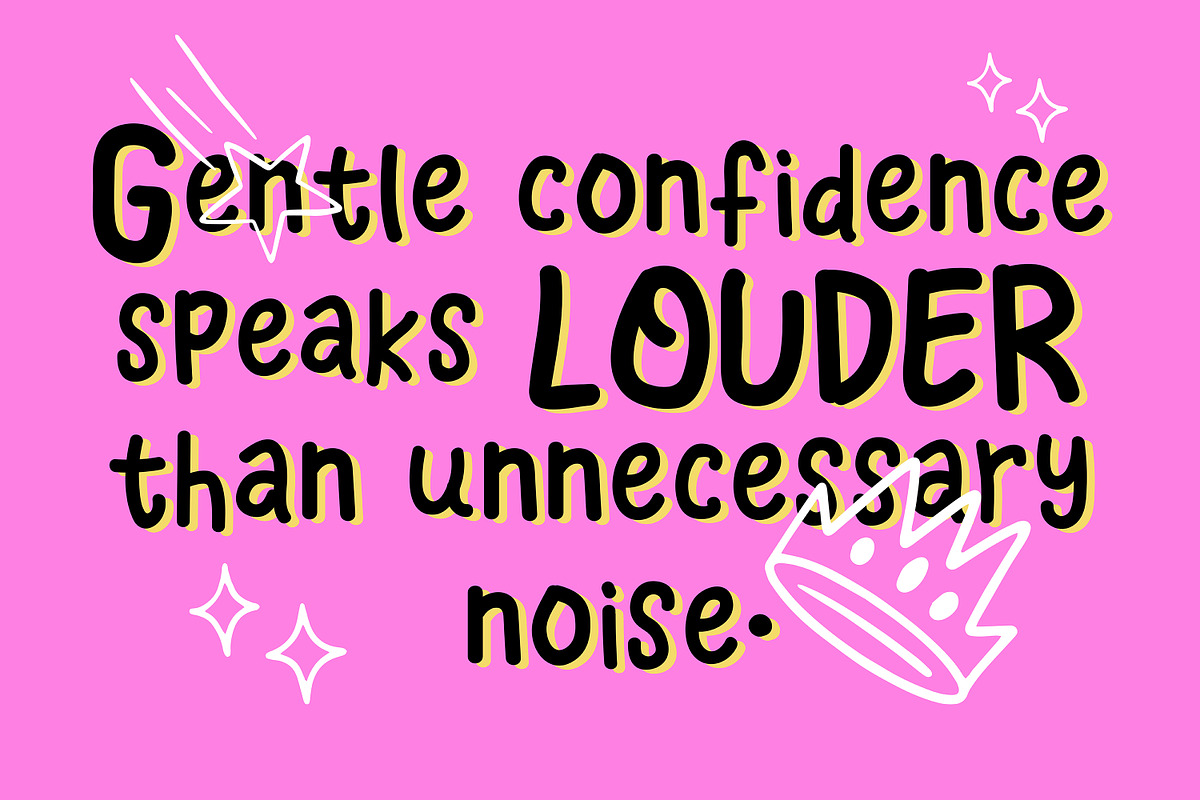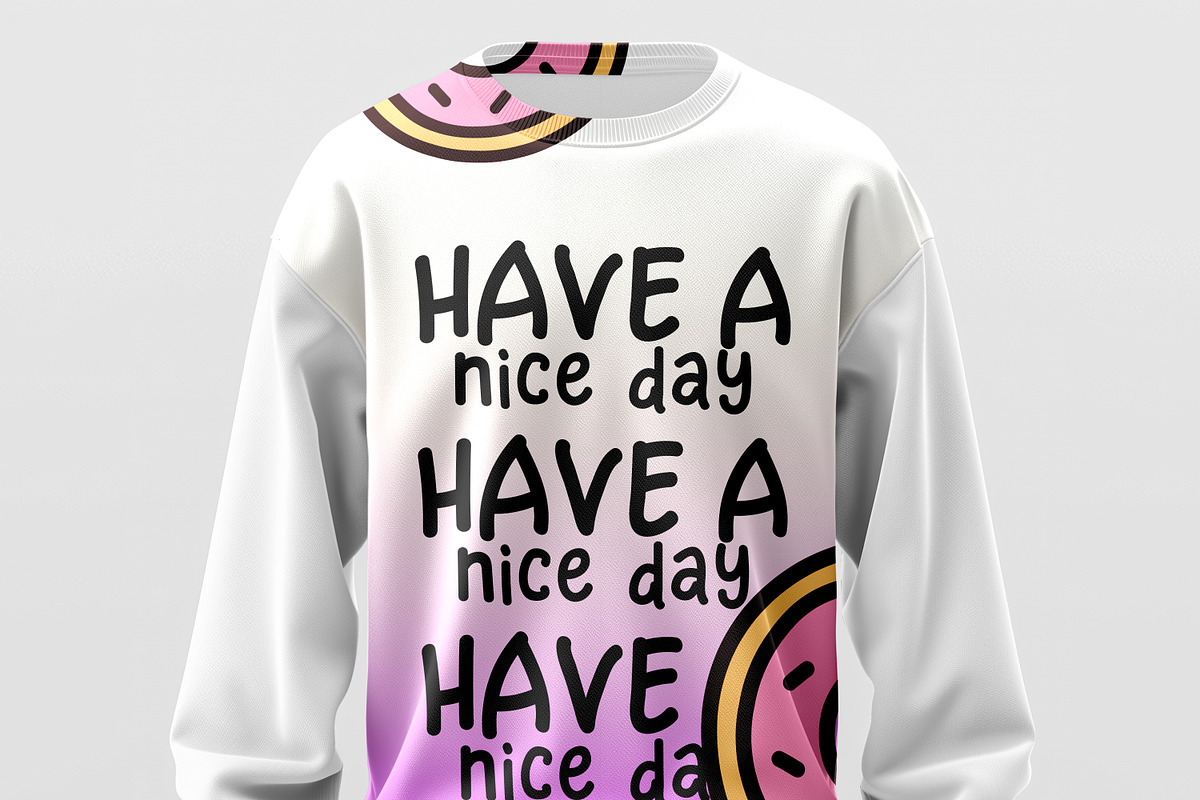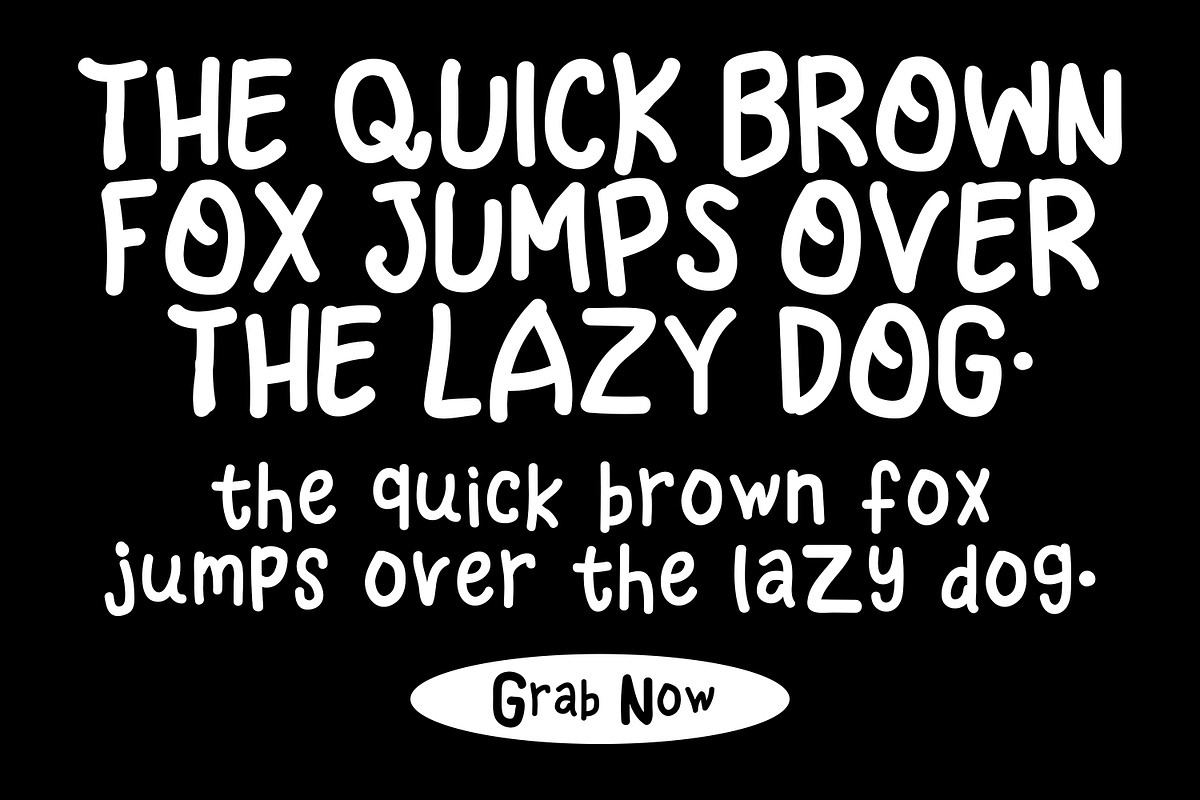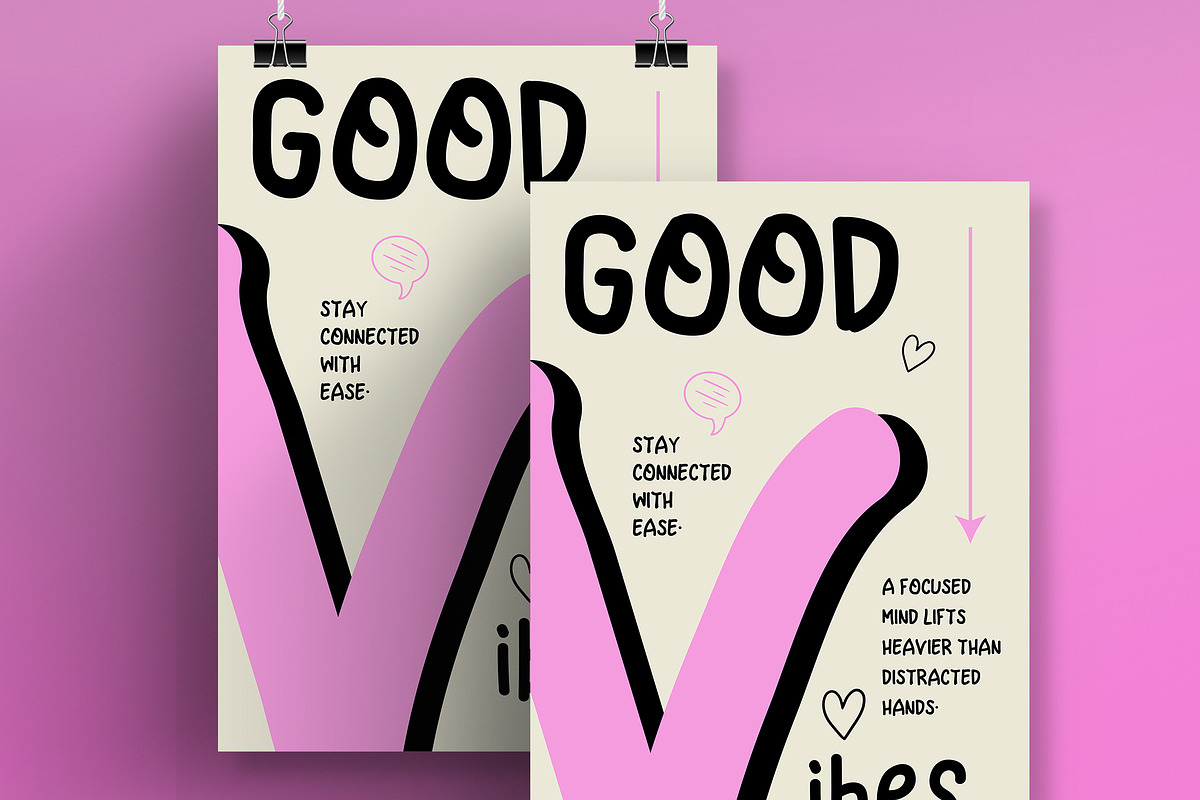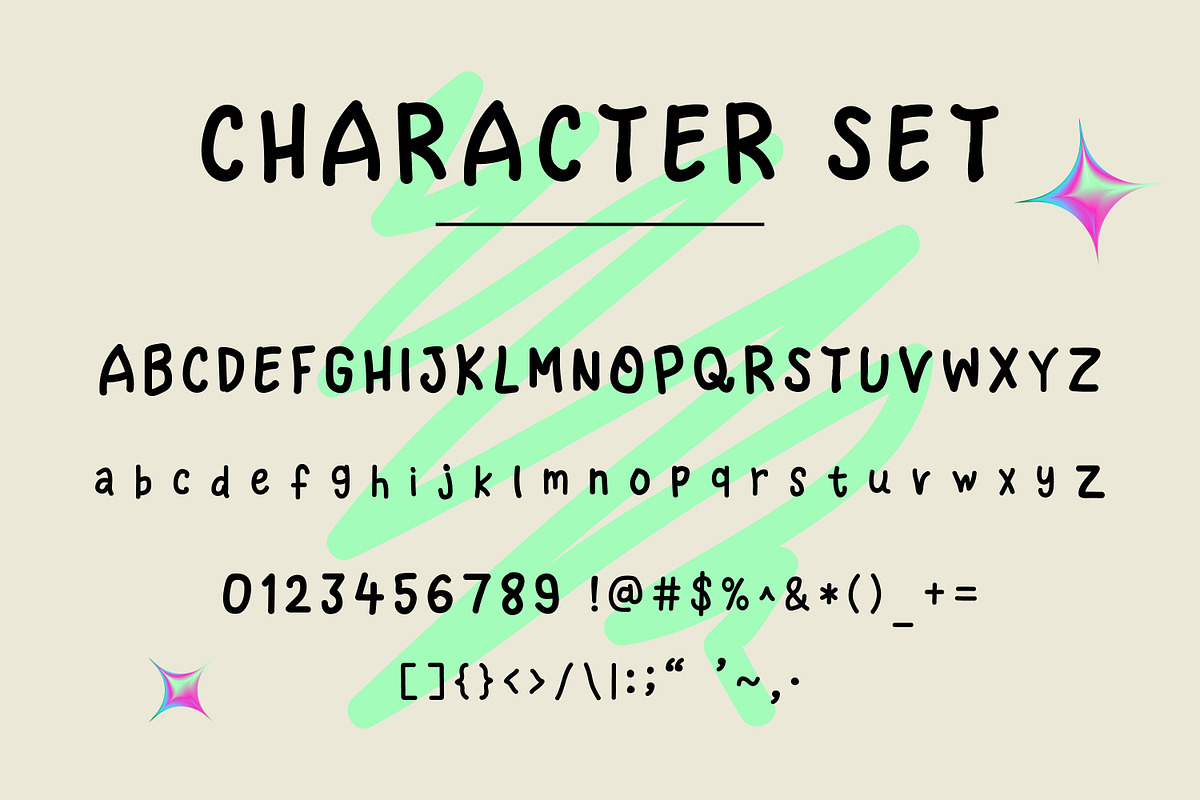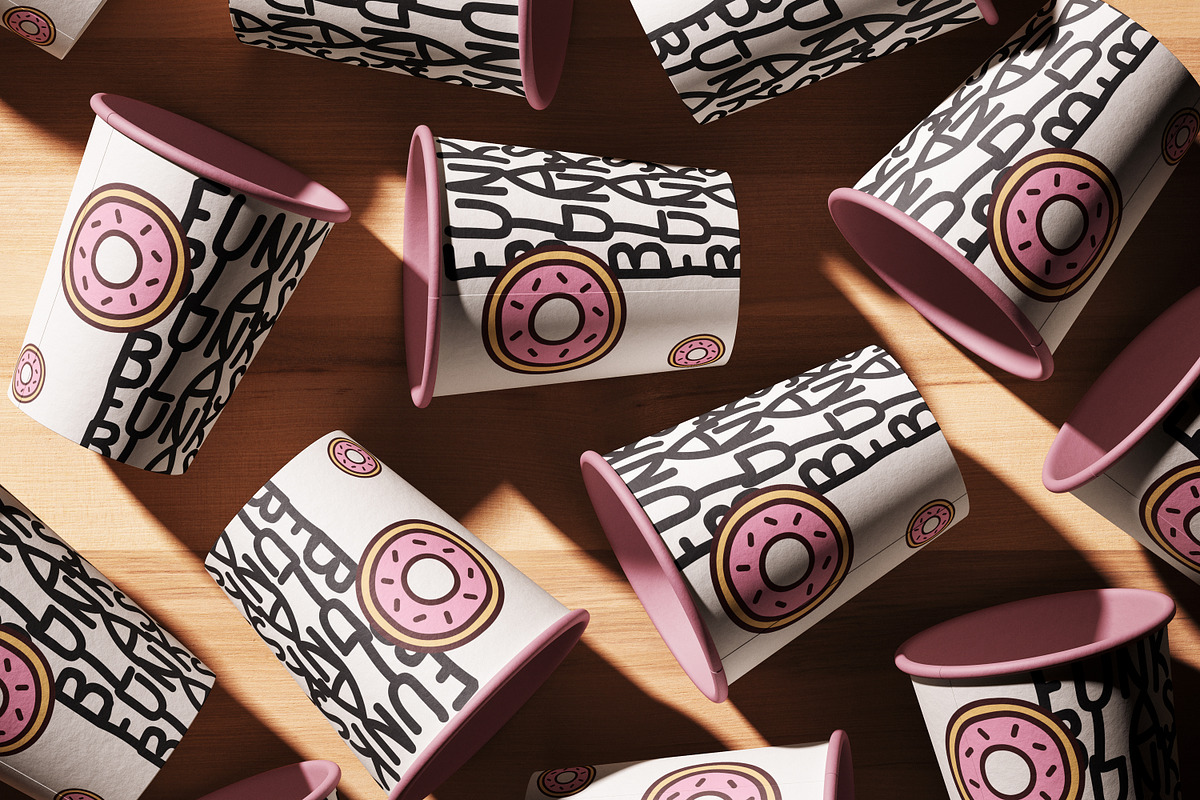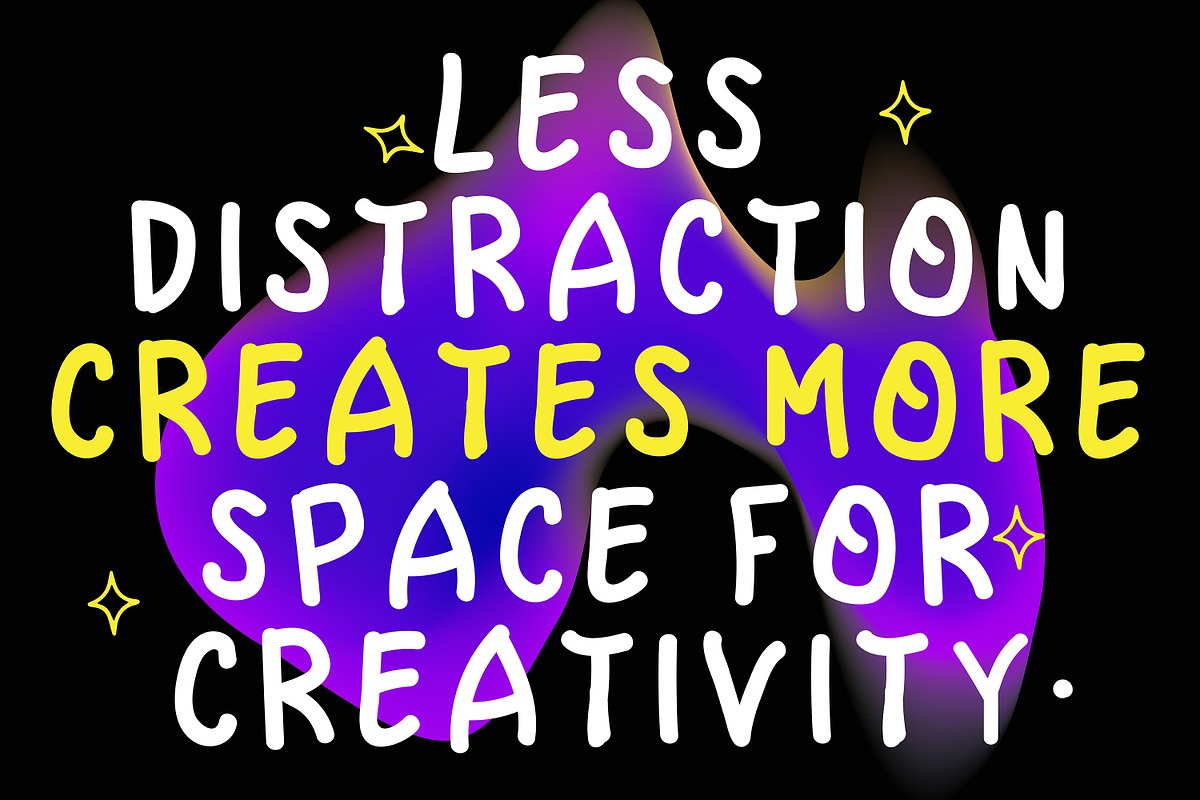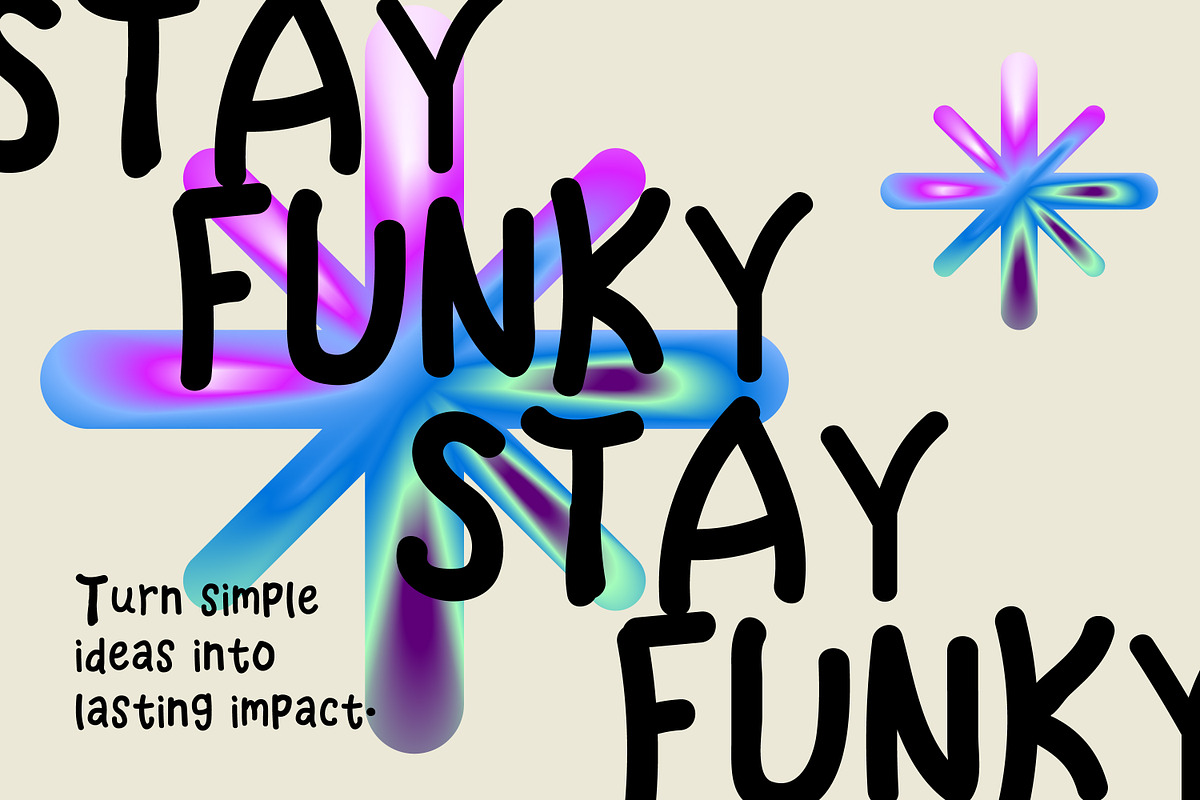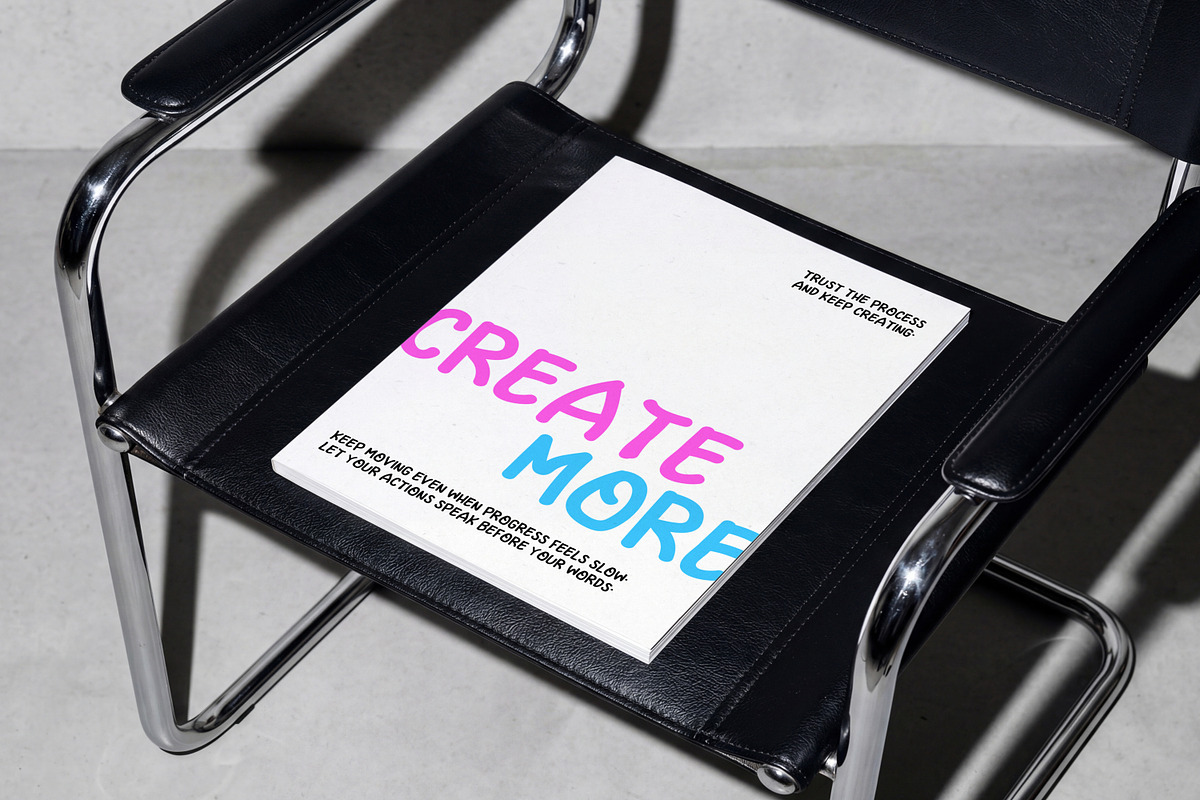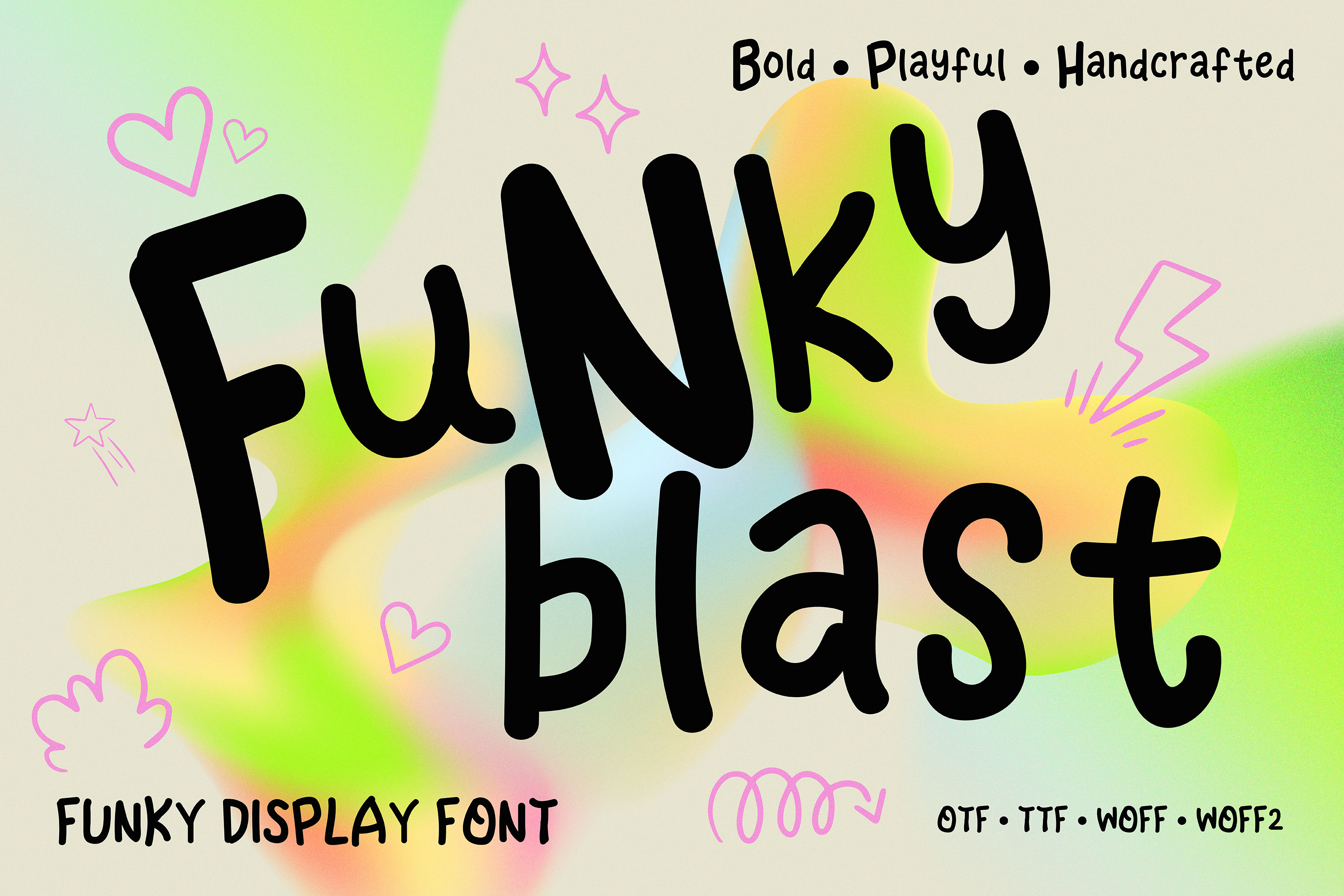
FunkyBlast – Playful Display Font
Bring creativity and personality to your designs with FunkyBlast, a fun handwritten display font that combines a playful style with excellent readability.
Perfect for kids' projects, branding, posters, social media, packaging, logos, greeting cards, T-shirts, stickers, and more. Its handcrafted appearance adds warmth and charm while making every design stand out.
Uppercase Letters
Lowercase Letters
Basic Punctuation
Playful Handwritten Style
Clean & Readable
Fun Display Font
Unique Character Design